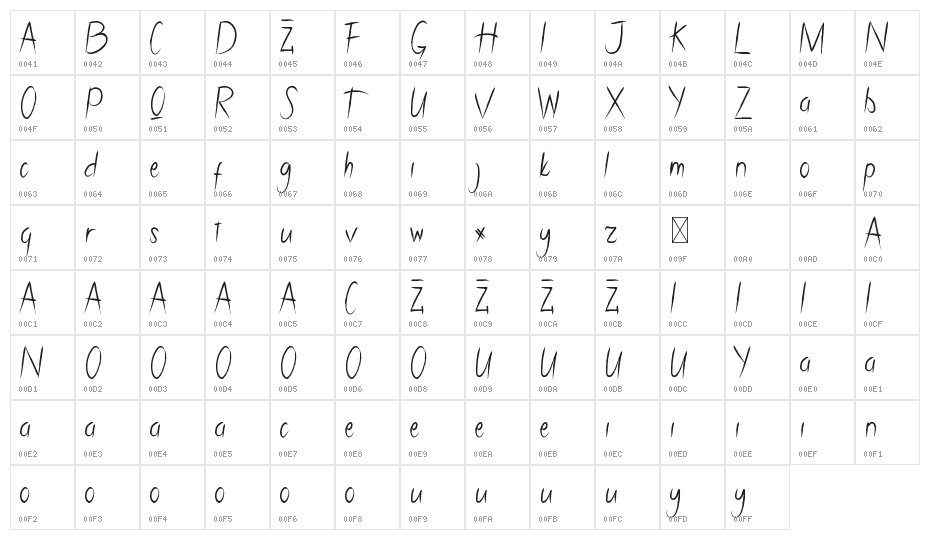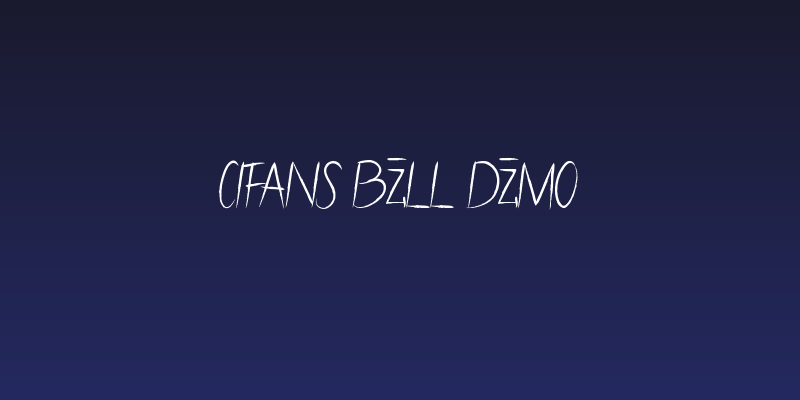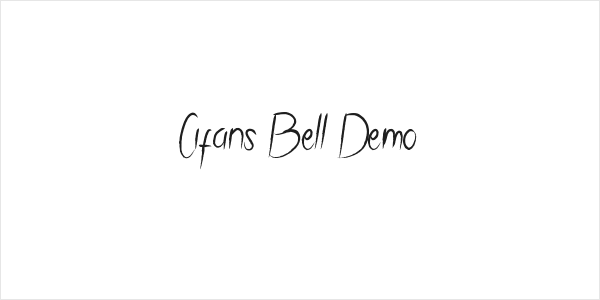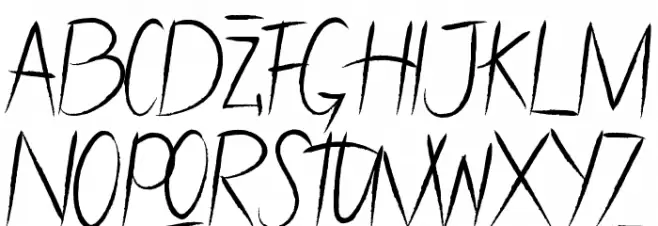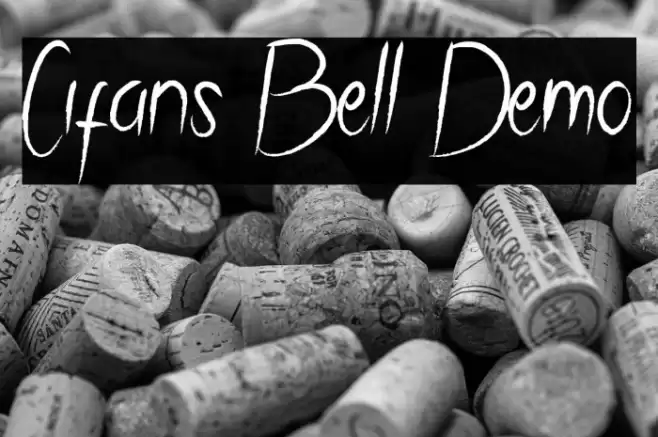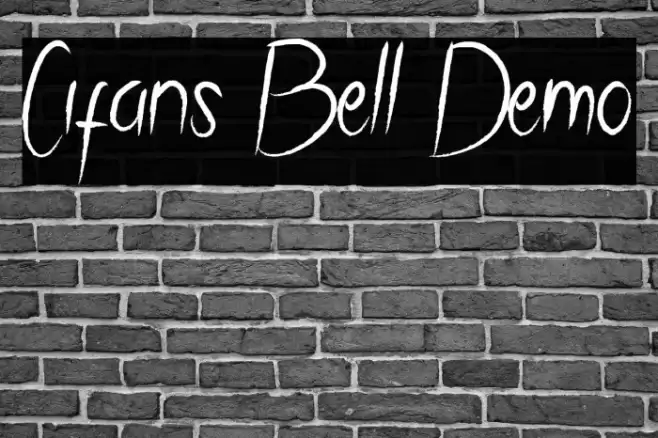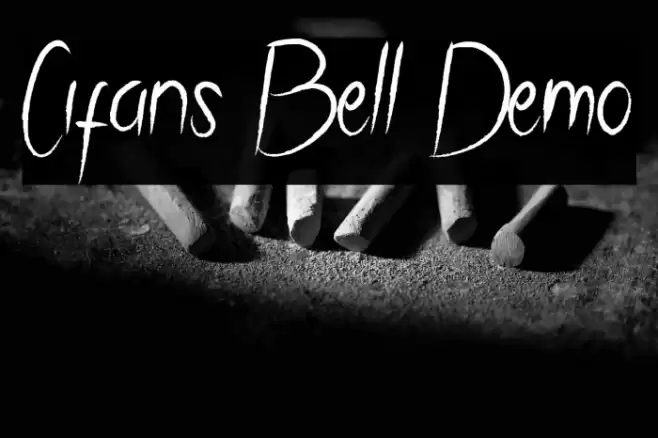
Cifans Bell Demo Font
This font exhibits a dynamic and expressive handwritten style, characterized by its elongated and slightly irregular letterforms. The strokes are uneven, giving it a lively and spontaneous appearance. The uppercase letters are tall and narrow, while the lowercase letters maintain a consistent flow with occasional flourishes. The font's unique personality is further enhanced by the inclusion of special characters that blend seamlessly with the overall design. Its artistic flair makes it suitable for creative projects that require a personal touch.